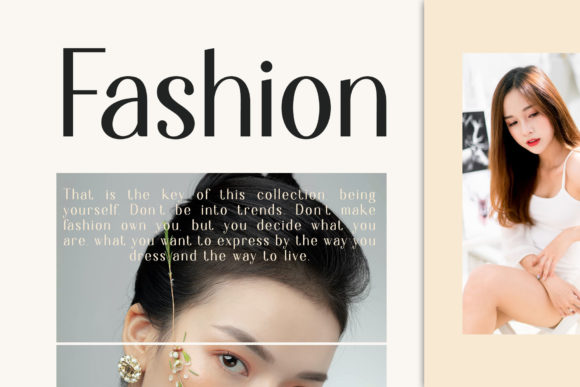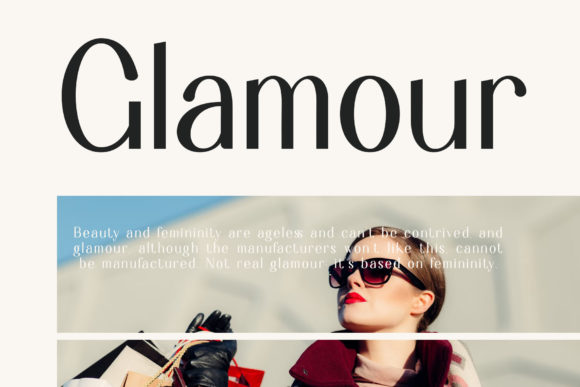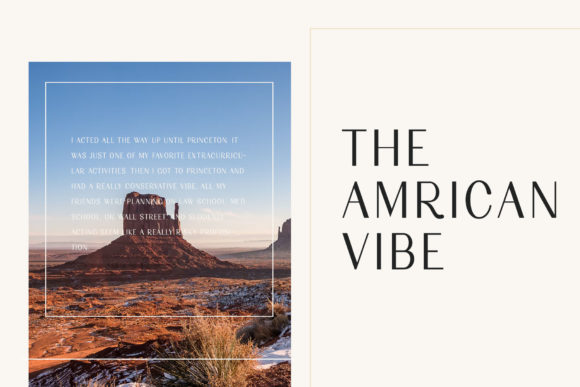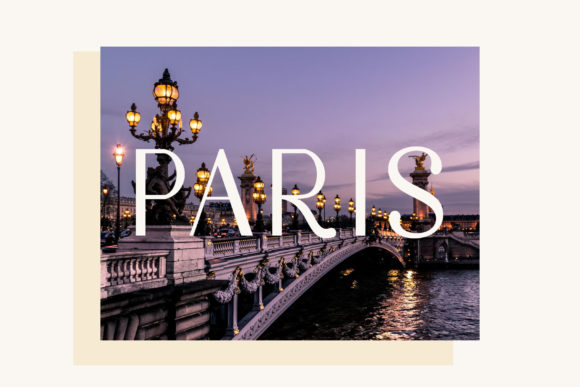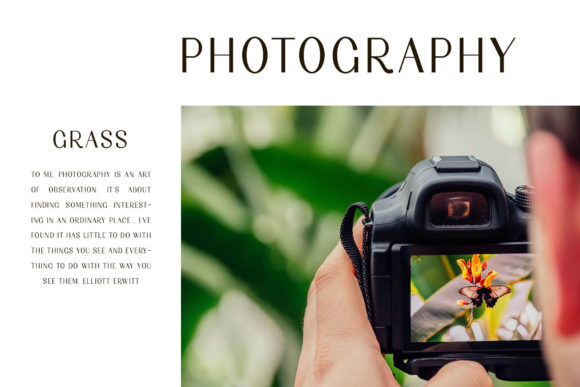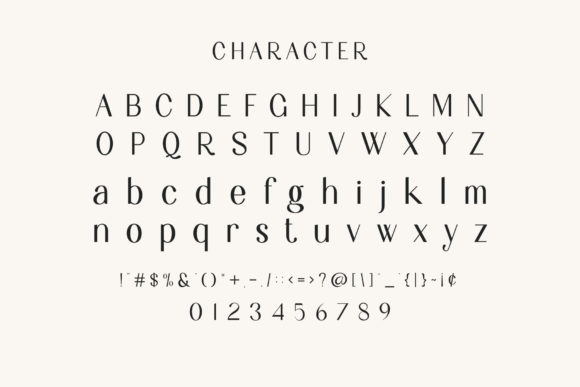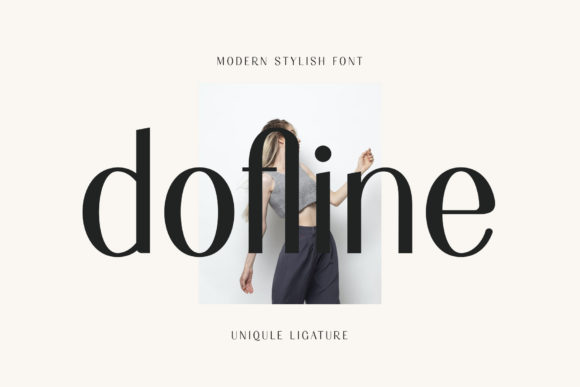
Dofline Font: Elevate Your Designs with Elegance and Sophistication
In the world of typography, fonts play a crucial role in conveying the tone and personality of a design. For designers and crafters seeking to add a touch of elegance and sophistication to their creations, the Dofline font is an excellent choice. This stunning sans serif font boasts a thin, lettered design that is sure to elevate any project.
What is Dofline Font?
Dofline is an elegant and thin lettered sans serif font, carefully crafted to provide a versatile and beautiful typographic solution for designers. Its sleek and modern design makes it perfect for a wide range of applications, from branding and advertising to packaging and digital media.
Key Features of Dofline Font
- Elegant and Sophisticated Design: Dofline’s thin lettered design exudes elegance and sophistication, making it ideal for designs that require a touch of refinement.
- Versatility: This font is suitable for various design projects, including logos, headings, titles, and more.
- Readability: Despite its thin design, Dofline remains highly readable, ensuring that your message is conveyed clearly and effectively.
- Modern Aesthetic: The sans serif design of Dofline gives it a modern and fresh look, perfect for designs that require a contemporary feel.
Benefits of Using Dofline Font
Adding Dofline to your font library can have a significant impact on your design work. Here are some benefits of using this beautiful font:
- Enhance Your Designs: Dofline’s elegant design can instantly elevate your creations, making them more visually appealing and engaging.
- Stand Out from the Crowd: With its unique and sophisticated design, Dofline can help your designs stand out in a crowded market.
- Save Time: Having a versatile font like Dofline in your library can save you time searching for the perfect font for your projects.
- Consistency: Using a consistent font throughout your designs can help establish a strong brand identity.
Use Cases for Dofline Font
Dofline’s versatility makes it suitable for a wide range of design projects. Here are some use cases for this beautiful font:
- Branding and Logo Design: Dofline’s elegant design makes it perfect for creating sophisticated logos and brand identities.
- Advertising and Marketing: This font is ideal for creating eye-catching advertisements, brochures, and marketing materials.
- Packaging Design: Dofline’s modern aesthetic makes it suitable for packaging designs that require a fresh and contemporary look.
- Digital Media: This font can be used for digital media, including website headers, social media graphics, and more.
In conclusion, Dofline is an elegant and thin lettered sans serif font that can elevate any design project. Its versatility, readability, and modern aesthetic make it a valuable asset to any designer’s font library. Whether you’re working on branding, advertising, packaging, or digital media, Dofline is a great choice for adding a touch of sophistication and elegance to your creations.